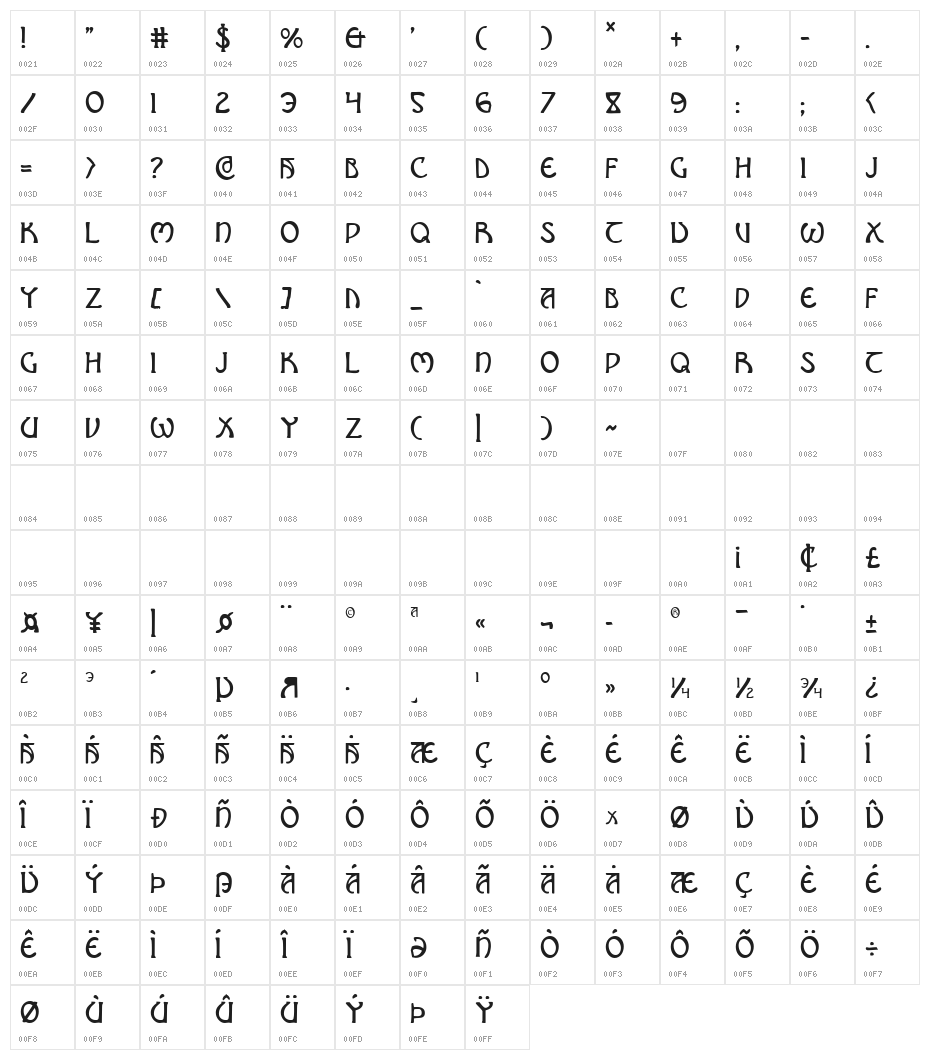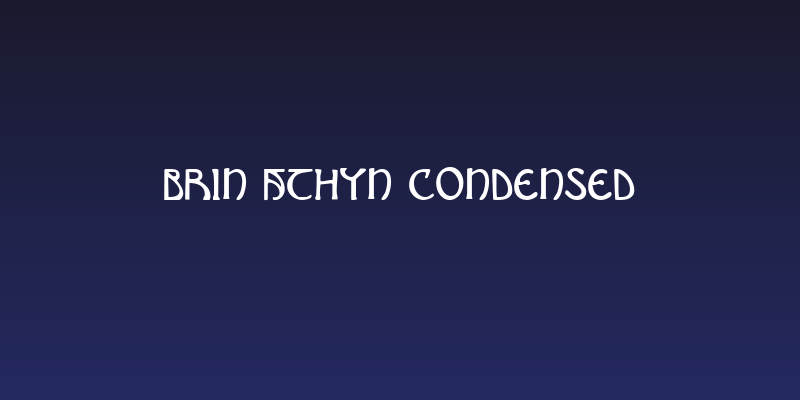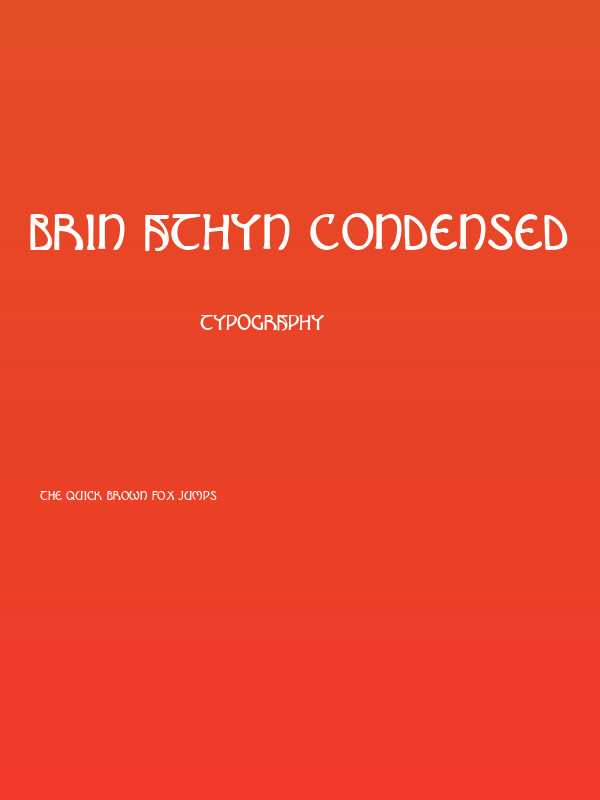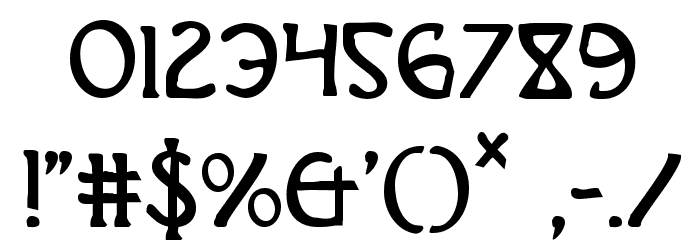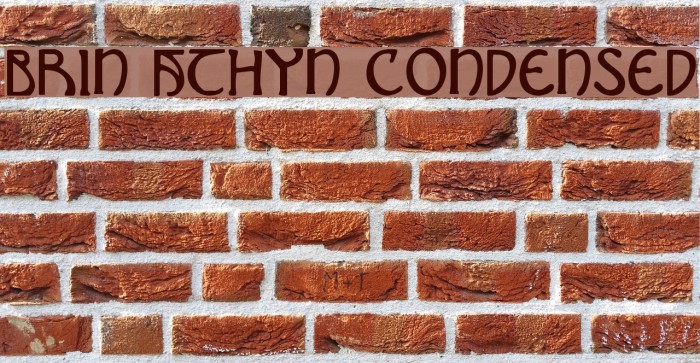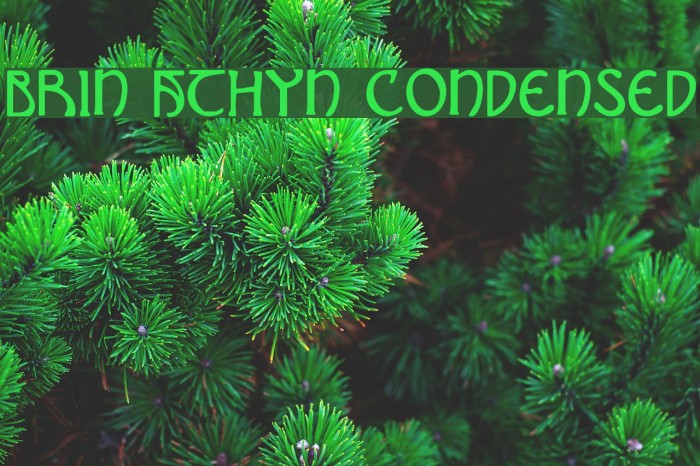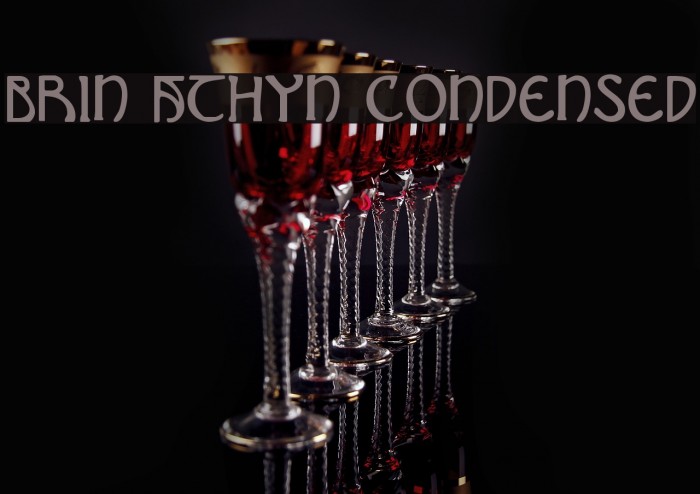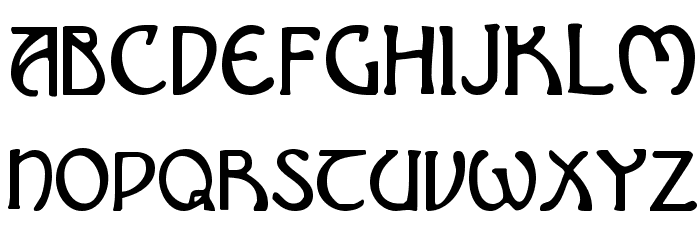
Brin Athyn Condensed Font
Brin Athyn Condensed Description
This font features a unique and artistic style with a condensed form. The characters exhibit a playful yet structured design, with curves and angles that give it a distinctive appearance. The uppercase letters are bold and prominent, while the lowercase letters maintain a consistent flow. Numbers are designed with a similar flair, ensuring uniformity across the font. Special characters are creatively integrated, adding to the font's overall charm. The font's condensed nature makes it suitable for space-saving applications without sacrificing readability.
| Use Case | Logos, Headlines, Posters |
| Proposed Projects | Ideal for creative projects such as posters, logos, and branding materials where a distinctive and artistic touch is desired. |